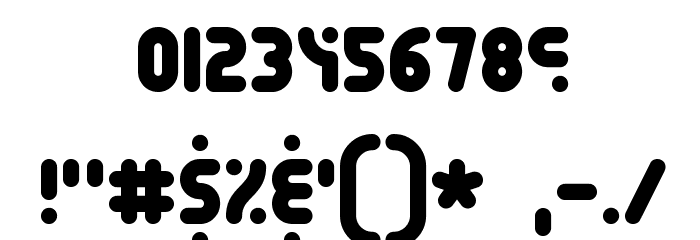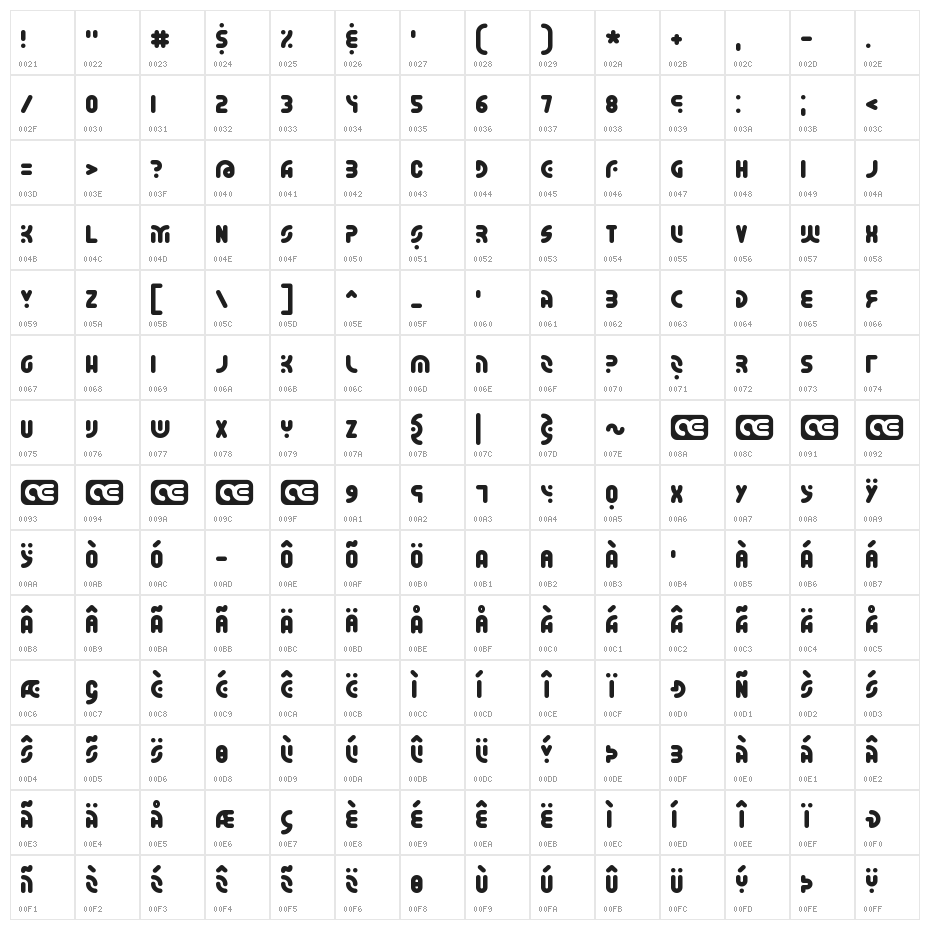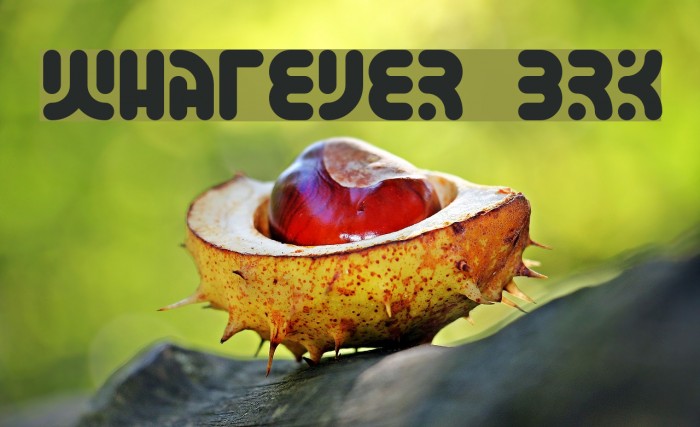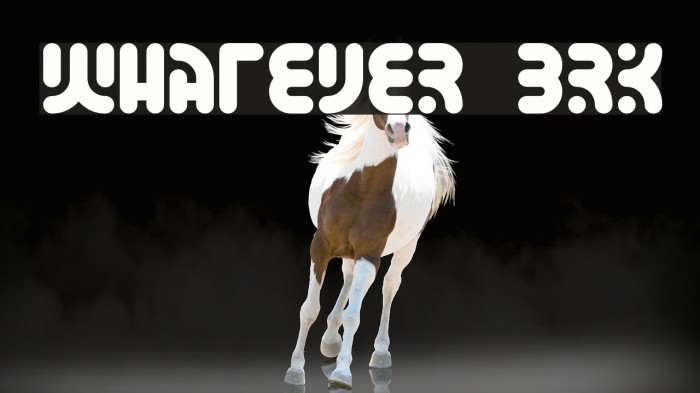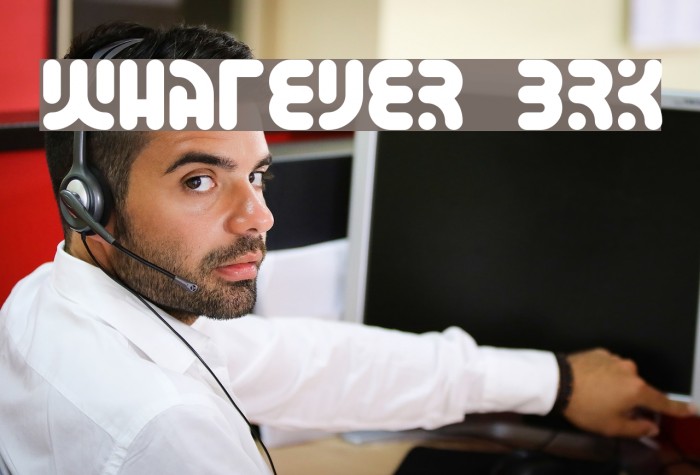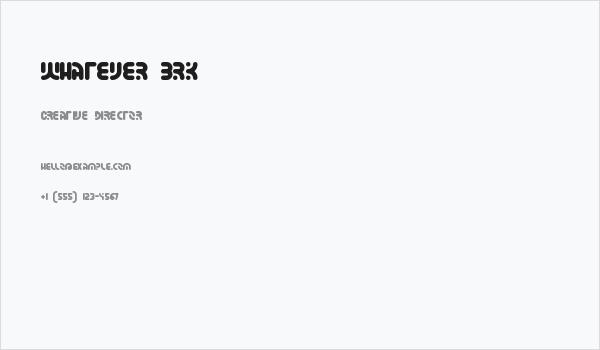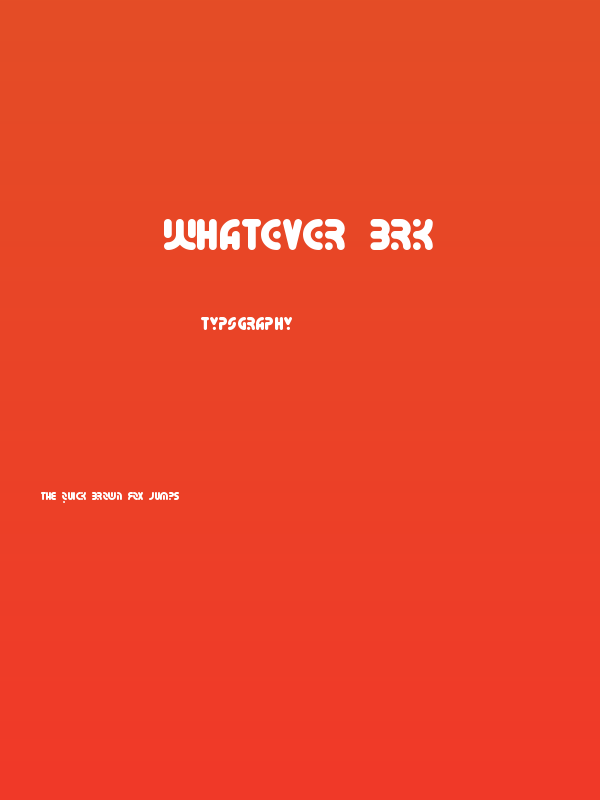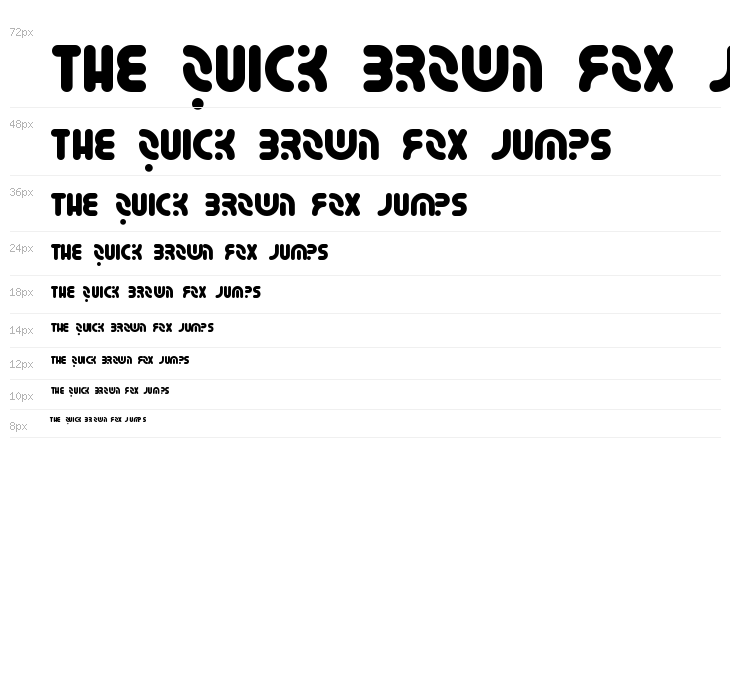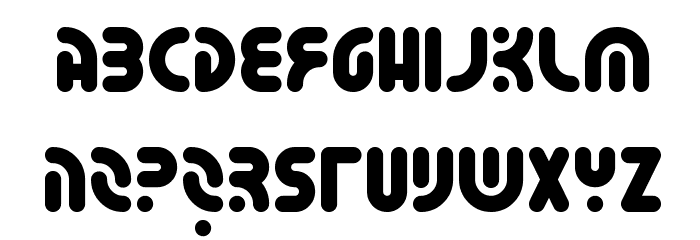
Whatever BRK Font
Whatever BRK Description
This font features a bold, rounded style with a playful and modern aesthetic. The characters are thick and uniform, with a distinct bubble-like appearance that gives it a unique and eye-catching look. The rounded edges and consistent stroke width contribute to its friendly and approachable feel. The font includes both uppercase and lowercase letters, numbers, and a variety of special characters, making it versatile for different uses. Its boldness ensures high visibility, making it suitable for attention-grabbing designs.
| Proposed Projects | Ideal for branding, posters, children's books, and playful graphic designs. |